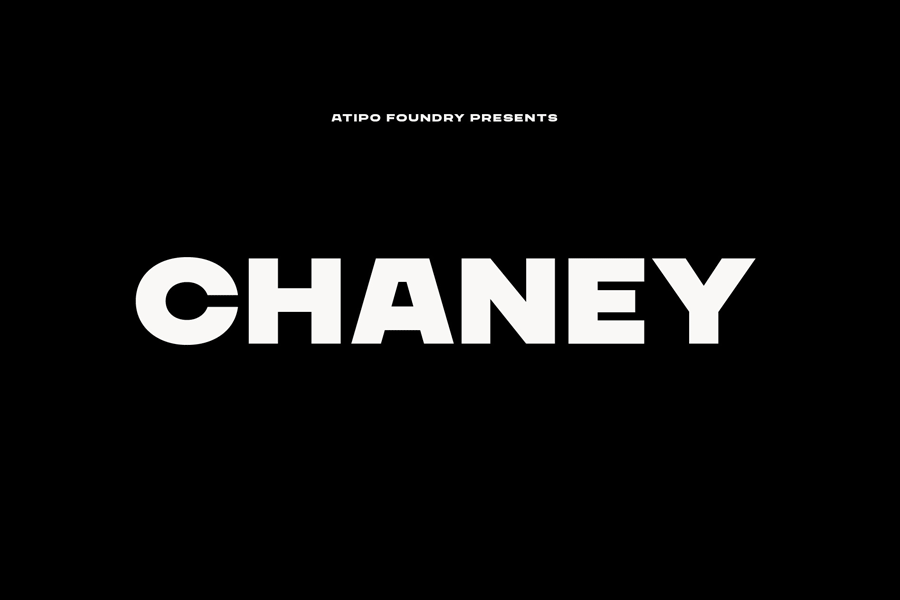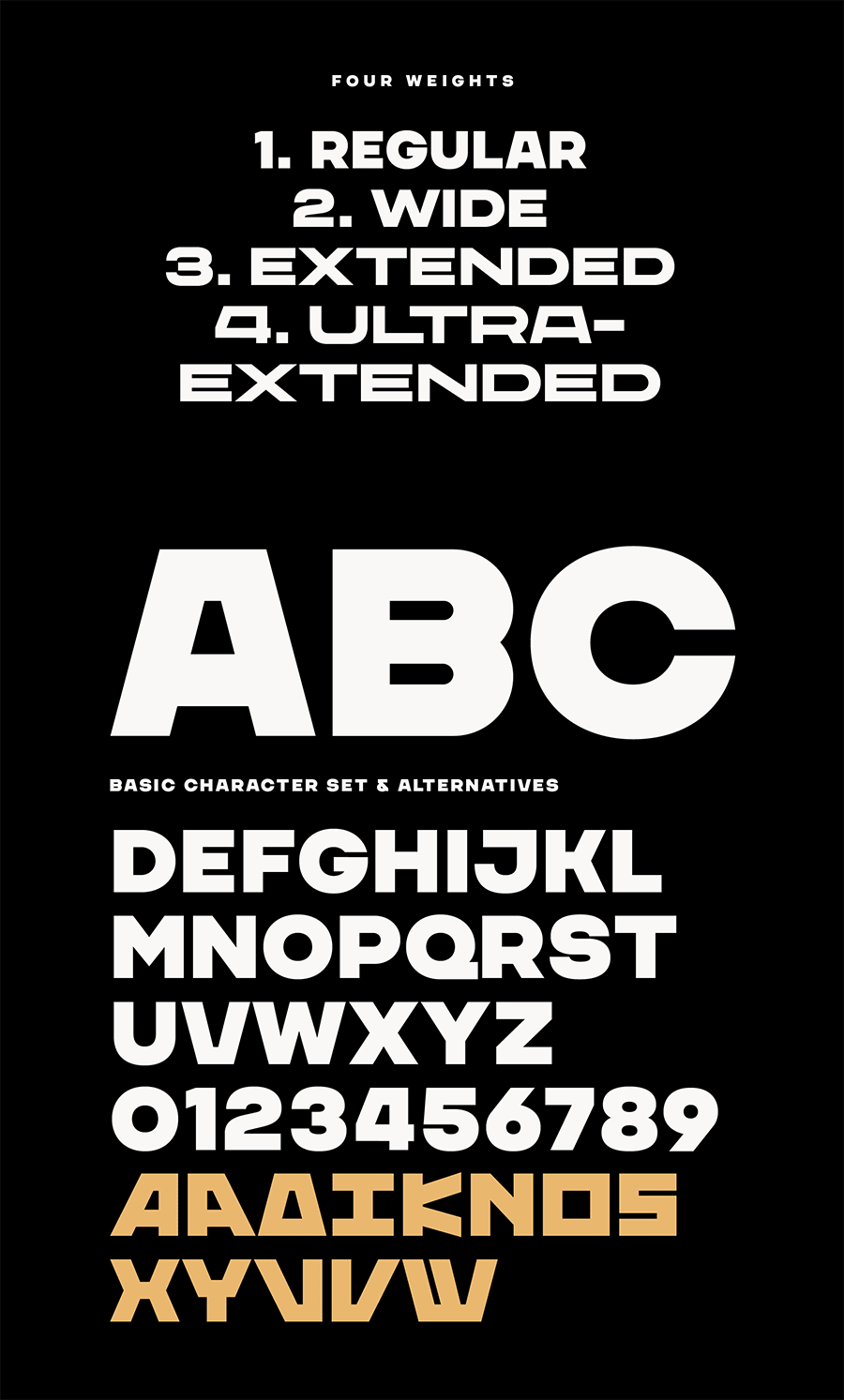
Chaney is geometrical sans serif font set in all caps display. Its clean, and blocky character design makes it suitable for large displays like headlines and posters, that could capture many attentions from afar. It also comes with several choices of alternate characters that would make the type design more interesting.